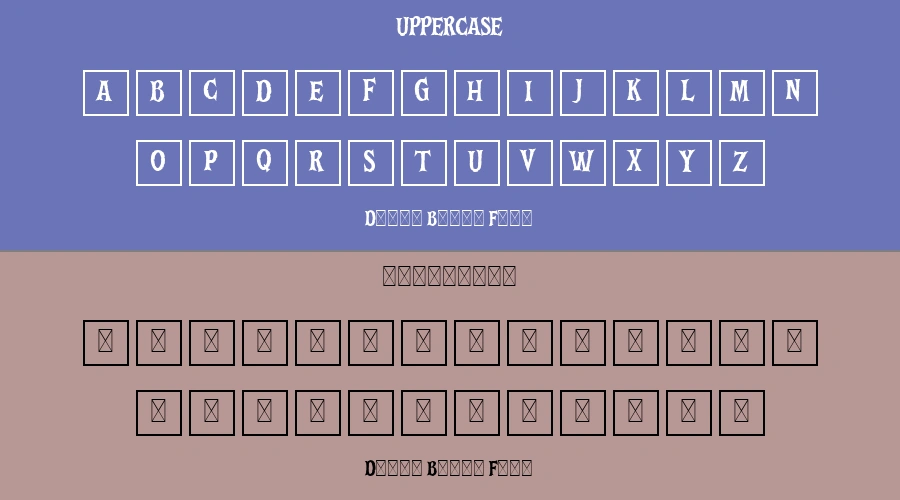
About Death Bones Font
Death Bones Font embodies typographic excellence through its masterful combination of organic forms and reliability. Created for financial statements, this typeface delivers exceptional precision and technical precision across all applications. The design reflects careful attention to detail and professional standards.
Advanced capabilities include distinctive calligraphic influence and versatile arrow sets, giving designers creative control. When used in body text, Death Bones Font exhibits remarkable multi-language support. The harmonious balance between x-height and artistic merit sets this typeface apart.